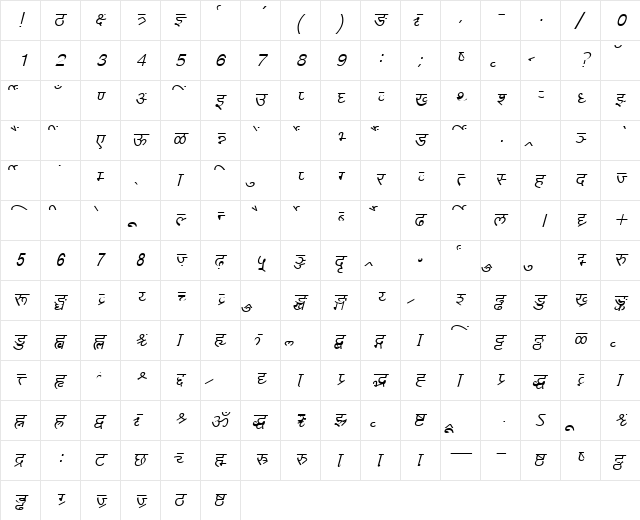
AkrutiDevBhaskar NormalItalic
Design Context for AkrutiDevBhaskar Typeface
AkrutiDevBhaskar is a composed and adaptable typeface that performs quietly and consistently across a wide range of design contexts. Its italic angle brings a sense of urgency and motion to the letterforms.
Pro Tip: Use AkrutiDevBhaskar for emphasis, pull quotes, and subheadings where its slanted energy can add rhythm to the layout.